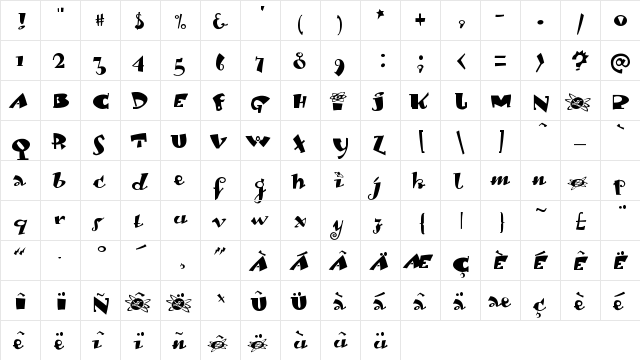
LambadaDexter Regular
Design Context for LambadaDexter Typeface
LambadaDexter is a composed and adaptable typeface that performs quietly and consistently across a wide range of design contexts.